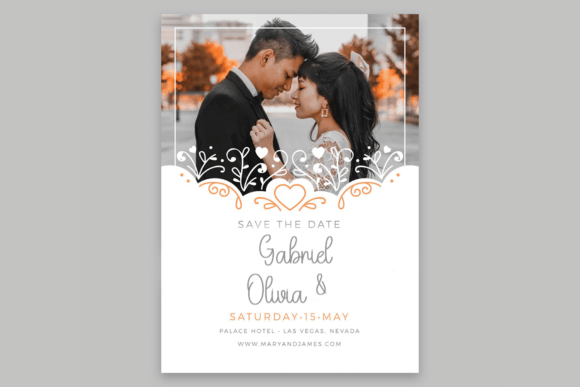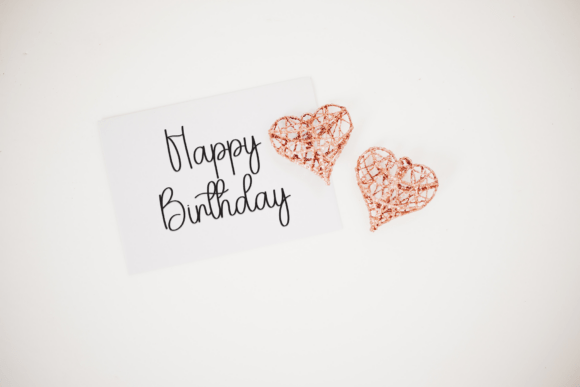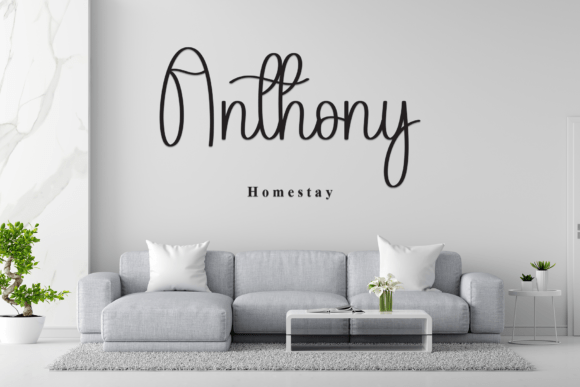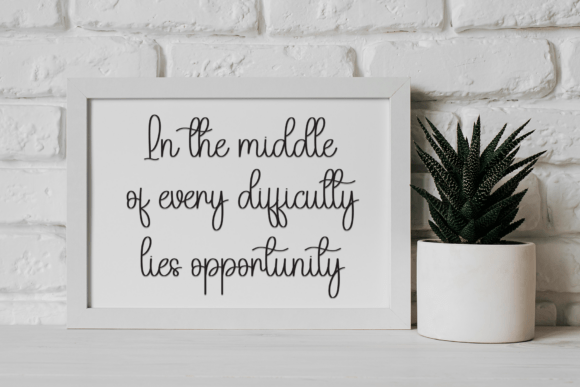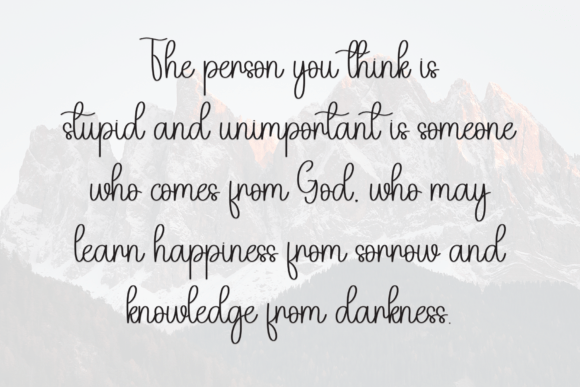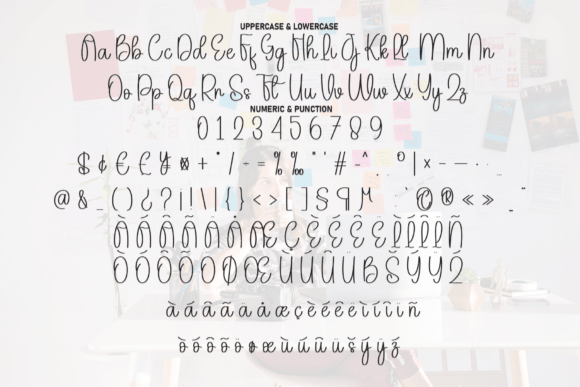
Discovering the Perfect Handwritten Touch
As a designer, you know the thrill of creating something that sparks joy in others. It’s that moment when a client’s eyes light up at a new concept, or a friend requests your help with a special project. For me, it’s often the result of finding the perfect typeface – one that captures the essence of the message and leaves a lasting impression. That’s exactly what the Autography Font does.
This stylish handwritten script font is designed to evoke a sense of renewal and delicate charm. Its flowing strokes and graceful curves make it perfect for invitations, branding, and seasonal designs. Whether you’re working on a wedding invitation or a new brand identity, Autography Font adds a soft, personal touch and uplifting feel to any project.
For designers, the Autography Font is a valuable tool in their creative arsenal. Its versatility and elegance make it a go-to choice for a wide range of projects, from event invitations to social media branding.
Autography Font Key Features
- Font Family: Autography Font is a unique, handwritten font family designed for various creative applications.
- Character Set: The font family includes a wide range of characters, including uppercase and lowercase letters, numbers, punctuation, and special characters.
- Unique Characteristics: Autography Font features a natural, handwritten feel with subtle variations in letterforms, making it ideal for creative projects that require a personal touch.
- Language Support: Supports multiple languages, including English, Spanish, French, German, Italian, Portuguese, and more.
Designer Review: Autography Font
Overall, I think Autography Font is a solid choice for designers who need a handwritten font. It has a certain charm to it, and it can be quite effective in the right context. ✨
- ✨ The font has a lot of personality and can add a touch of elegance to designs.
- ✨ It’s highly legible, even at small font sizes.
- ✨ The font has a wide range of weights and styles, making it easy to find the perfect fit for your design.
- ⚠️ The font may not be suitable for large blocks of text, as it can be difficult to read in bulk.
- ⚠️ Some of the letterforms can be quite irregular, which may not be ideal for designers who prefer more traditional typography.
Overall, I think Autography Font is a great choice for designers who need a handwritten font for smaller projects or for adding a touch of personality to their designs. However, it may not be the best choice for large-scale projects or for designers who prefer more traditional typography.
Tips for Getting the Most Out of Autography Font
Use Autography Font to create unique and personalized signatures, logos, and branding materials.
Use Autography Font in conjunction with other design elements, such as graphics and images, to create a cohesive look.
Autography Font is ideal for:
Personalized signatures and letterheads
Branding materials, such as logos and business cards
Designing invitations and event materials
Alternatives to Autography Font
Great Vibes Font is a modern, cursive script font that’s perfect for creating a unique and elegant look. It’s ideal for use in headings, titles, and other text where a touch of sophistication is desired. Great Vibes Font is a bit more formal than Autography Font and has a more refined feel, making it suitable for high-end designs and luxury brands.
Comparison to Autography Font: Great Vibes Font is more elegant and refined, while Autography Font is more casual and playful. Great Vibes Font is also more versatile and can be used in a wider range of design applications.
Dancing Script Font is a lively, handwritten font that’s perfect for creating a fun and energetic vibe. It’s ideal for use in headings, titles, and other text where a sense of movement and playfulness is desired. Dancing Script Font is a bit more whimsical than Autography Font and has a more carefree feel, making it suitable for youth-oriented brands and creative projects.